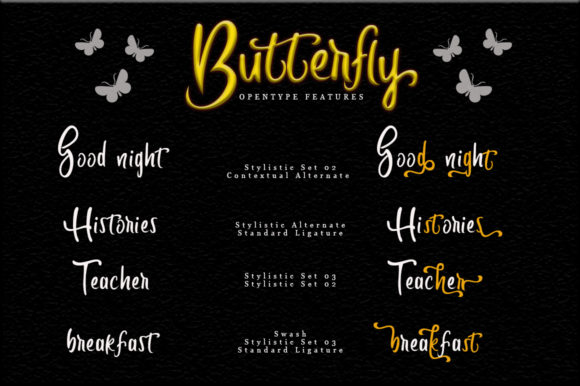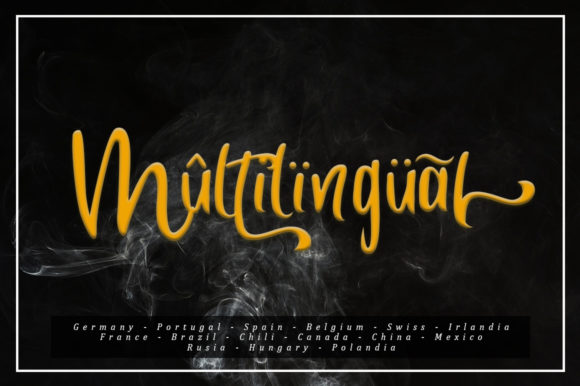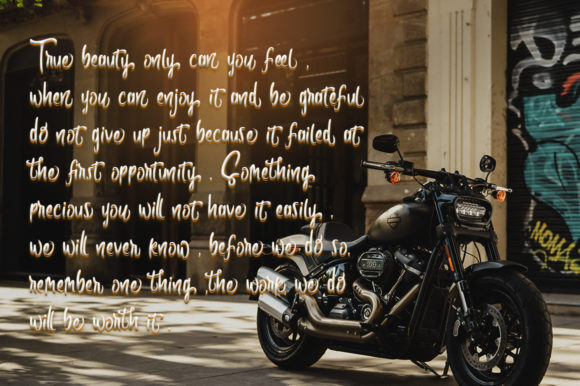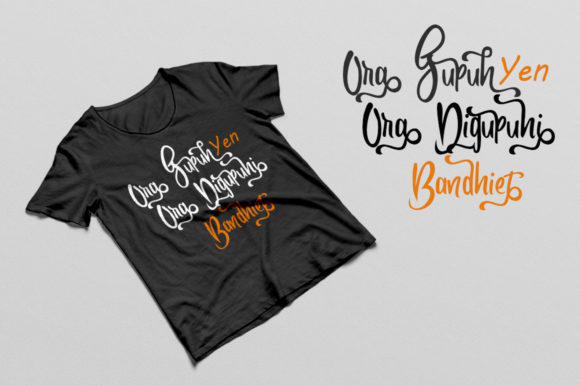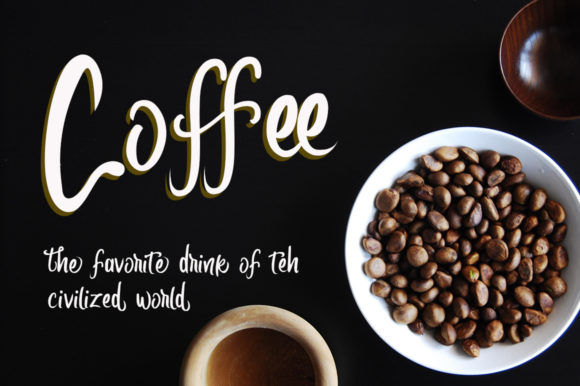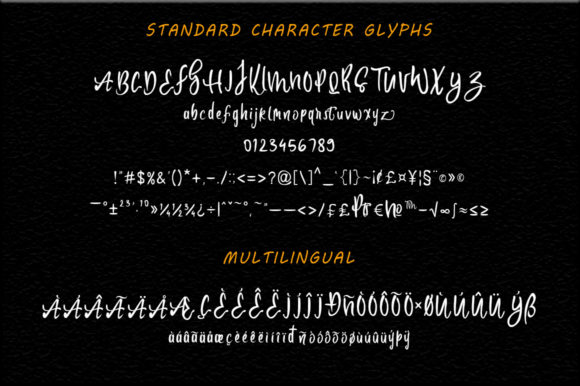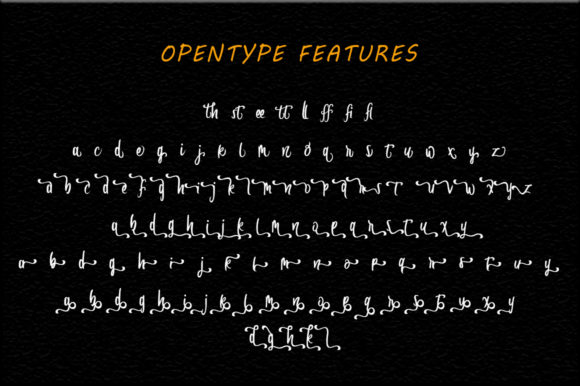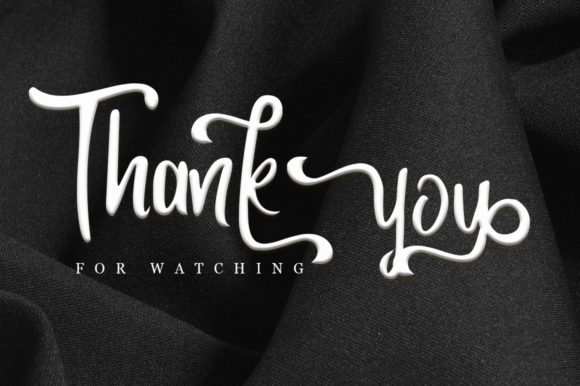
HomeScript FontsButterfly Font Script Fonts Butterfly Font FacebookXPinterestWhatsApp Butterfly Font Poster 2 Butterfly Font Poster 3 Butterfly Font Poster 4 Butterfly Font Poster 5 Butterfly Font Poster 6 Butterfly Font Poster 7 Butterfly Font Poster 8 Butterfly Font Poster 9 About Butterfly Font Butterfly is a modern calligraphy font with a bold twist. It will add a personal feel to any design idea! DOWNLOAD NOW People also explored Maulydia Scary Font Right Font Designer Font Bundle Babet Font Heather Sapphire Gildan 5000 Flat Lay Sheena Font Billjones | Brush Hand-Lettering Script Font Troutbeck 299 0 TagsButterfly Font Previous articleEcustic FontNext articleLove Story Font LEAVE A REPLY Cancel reply Comment: Please enter your comment! Name:* Please enter your name here Email:* You have entered an incorrect email address! Please enter your email address here Website: Save my name, email, and website in this browser for the next time I comment. Personal Use Free Legacy Personal Use Free Read more about this font Expaing Personal Use Free Read more about this font Built Tilting Personal Use Free Read more about this font Allea Sweet Personal Use Free Read more about this font BLOG Modern Sans-Serif Fonts That Brands Love in 2025 In 2025, modern sans-serif fonts remain a top choice for brands looking to project clarity, professionalism, and... Using Fonts in Digital Marketing: Tips to Strengthen Your Brand Identity Elegant Wedding Invitation Fonts – Handwritten & Script Fonts Free Fonts Risk: Why Free Fonts Can Be Dangerous for Designers